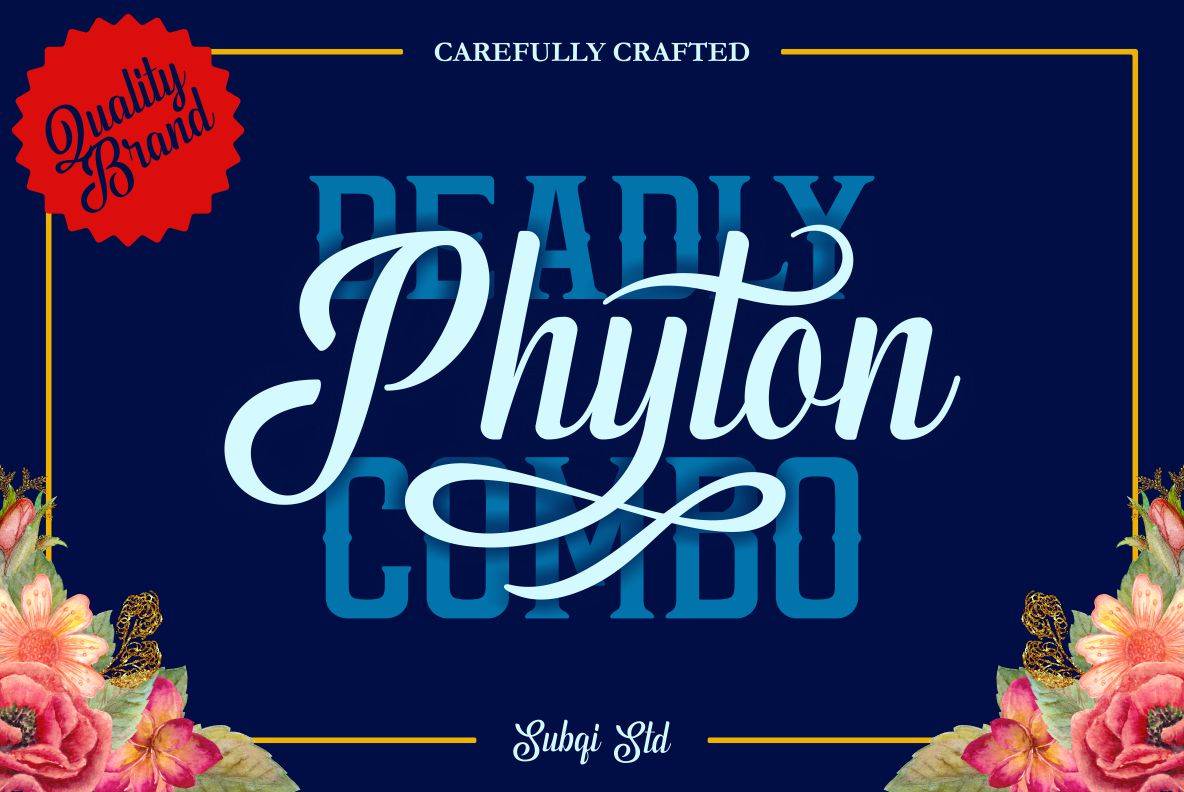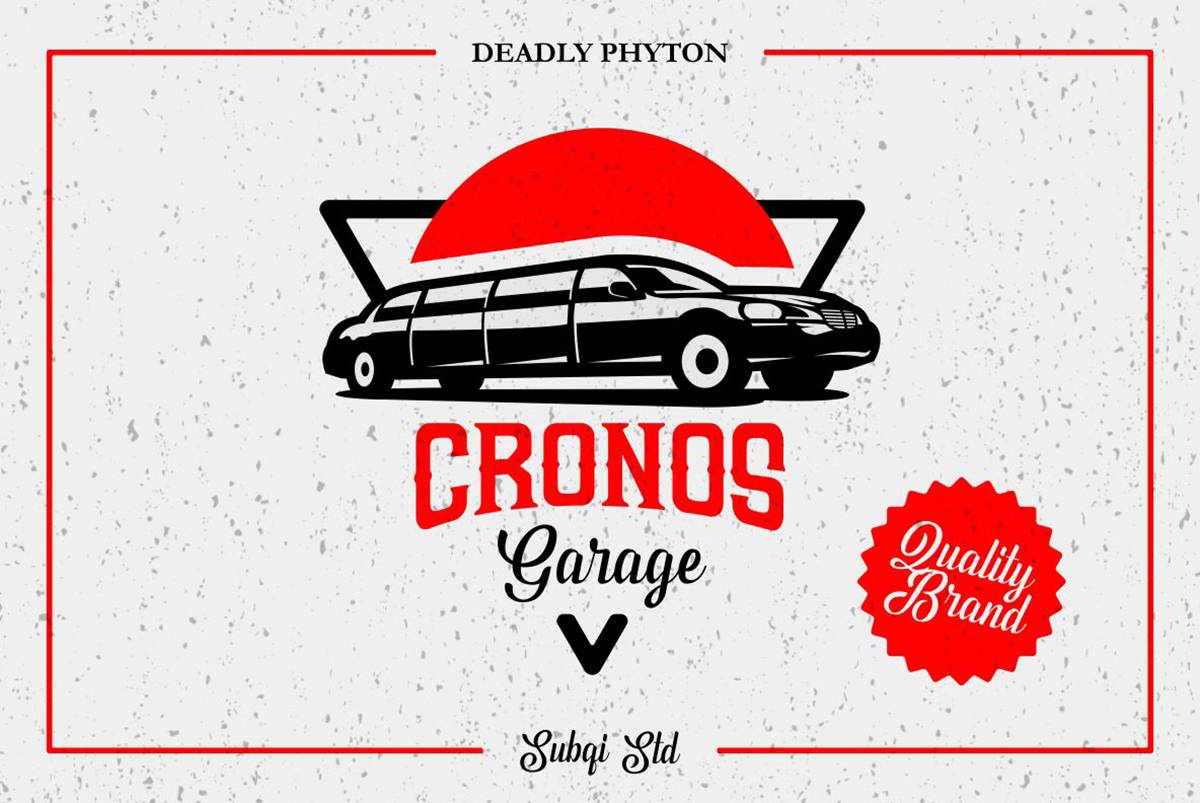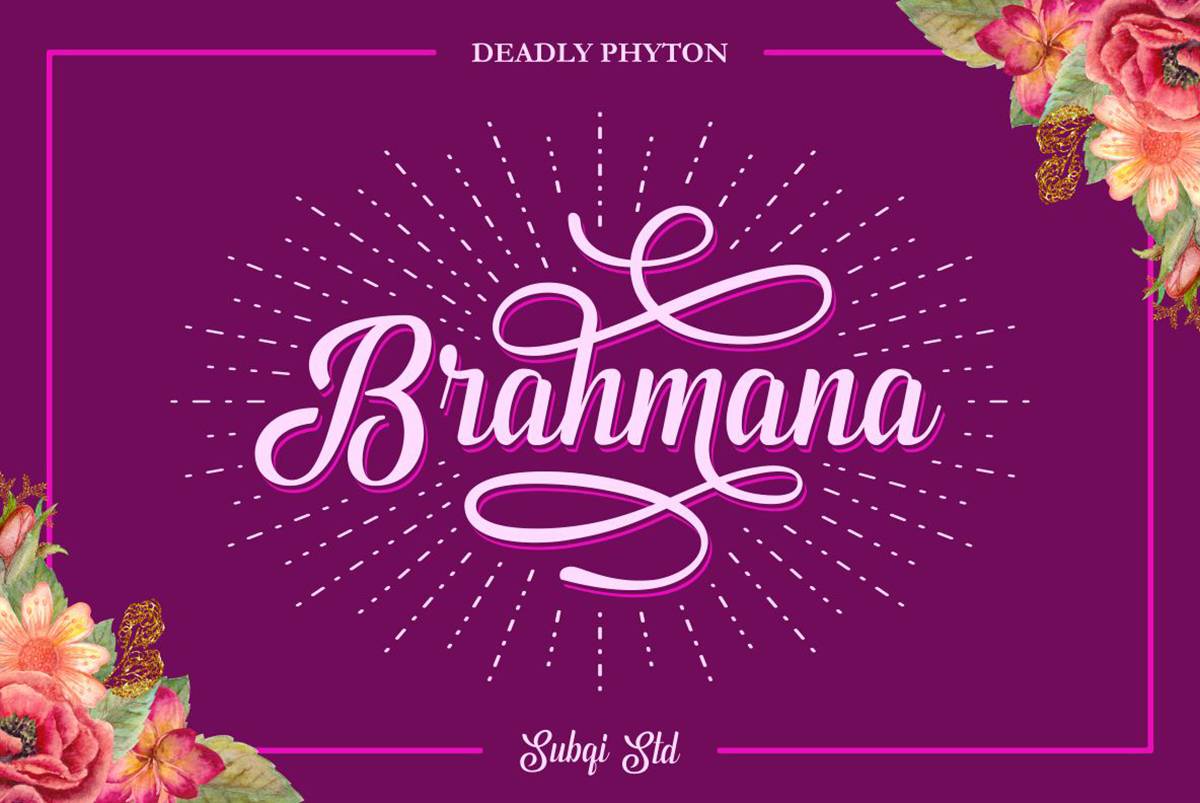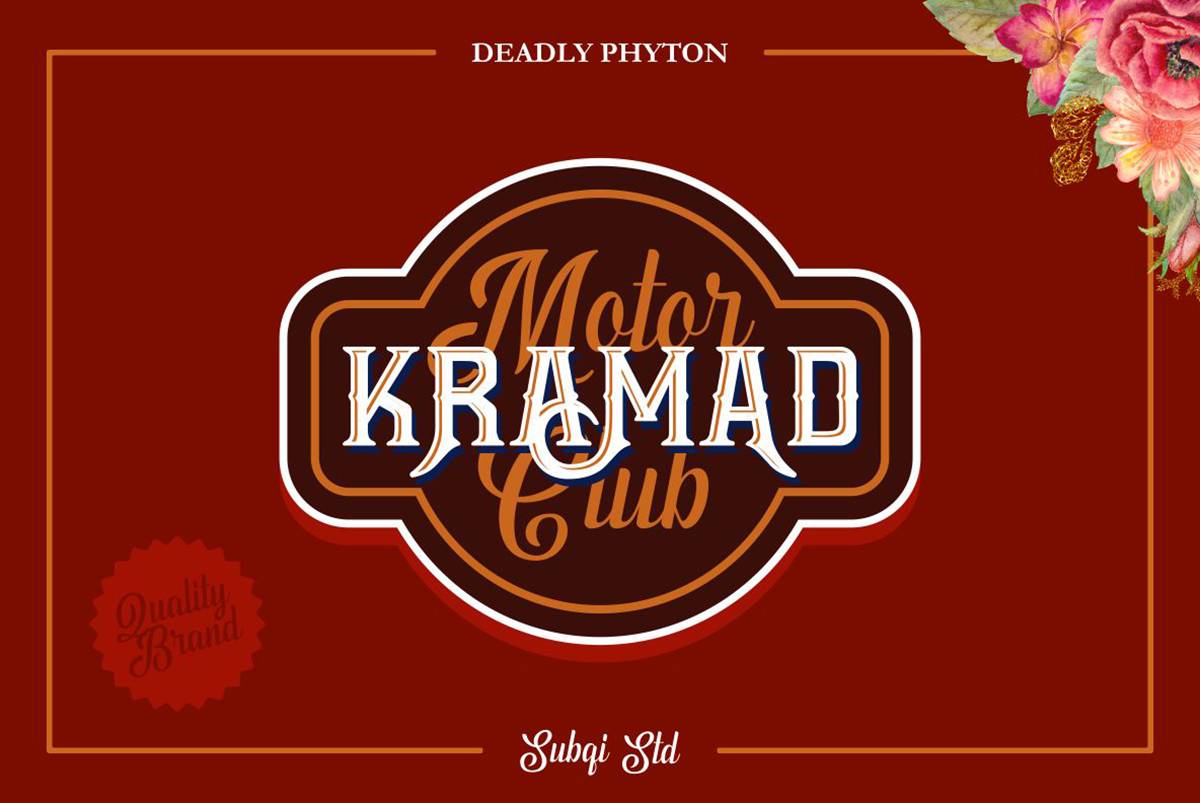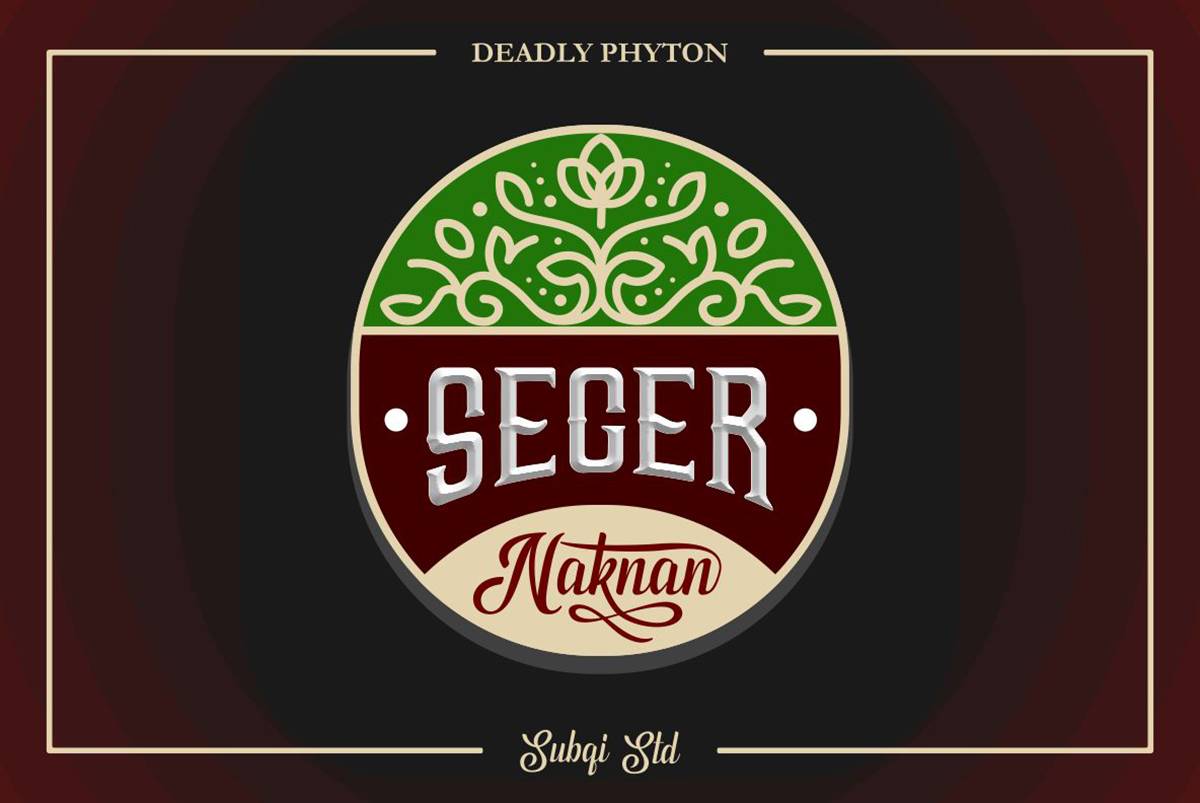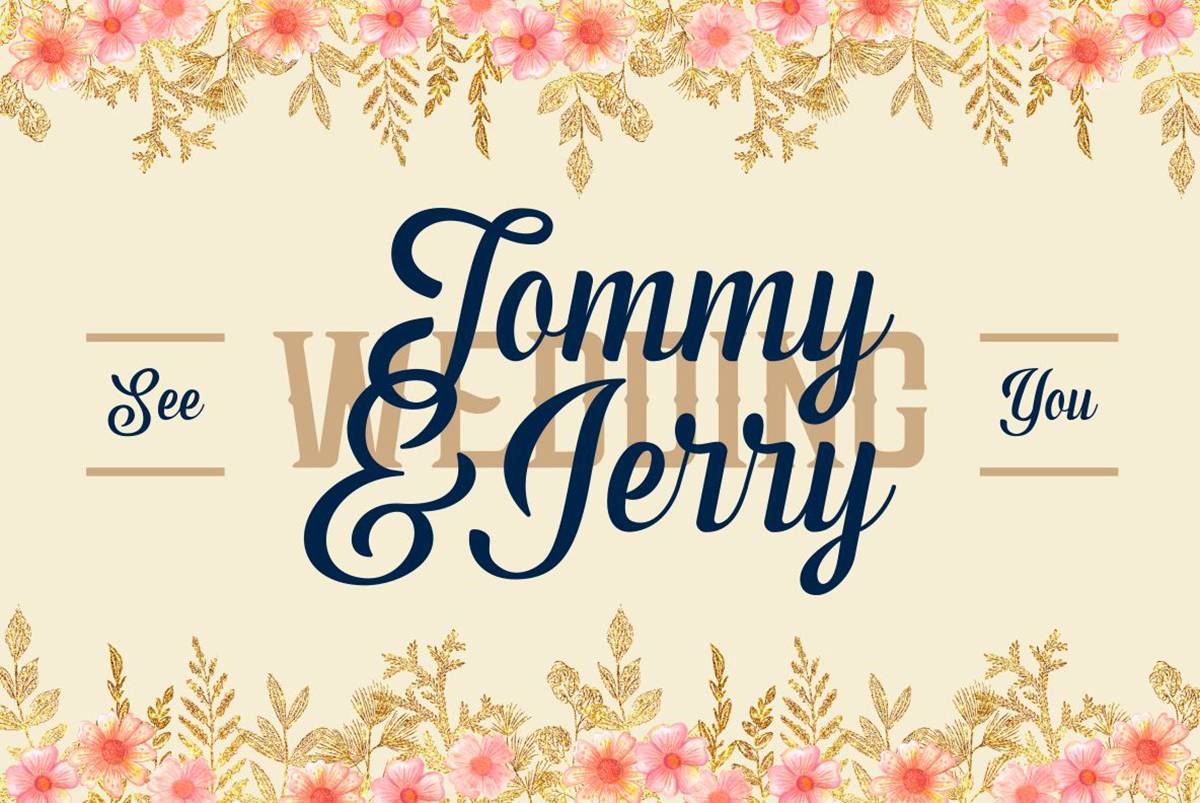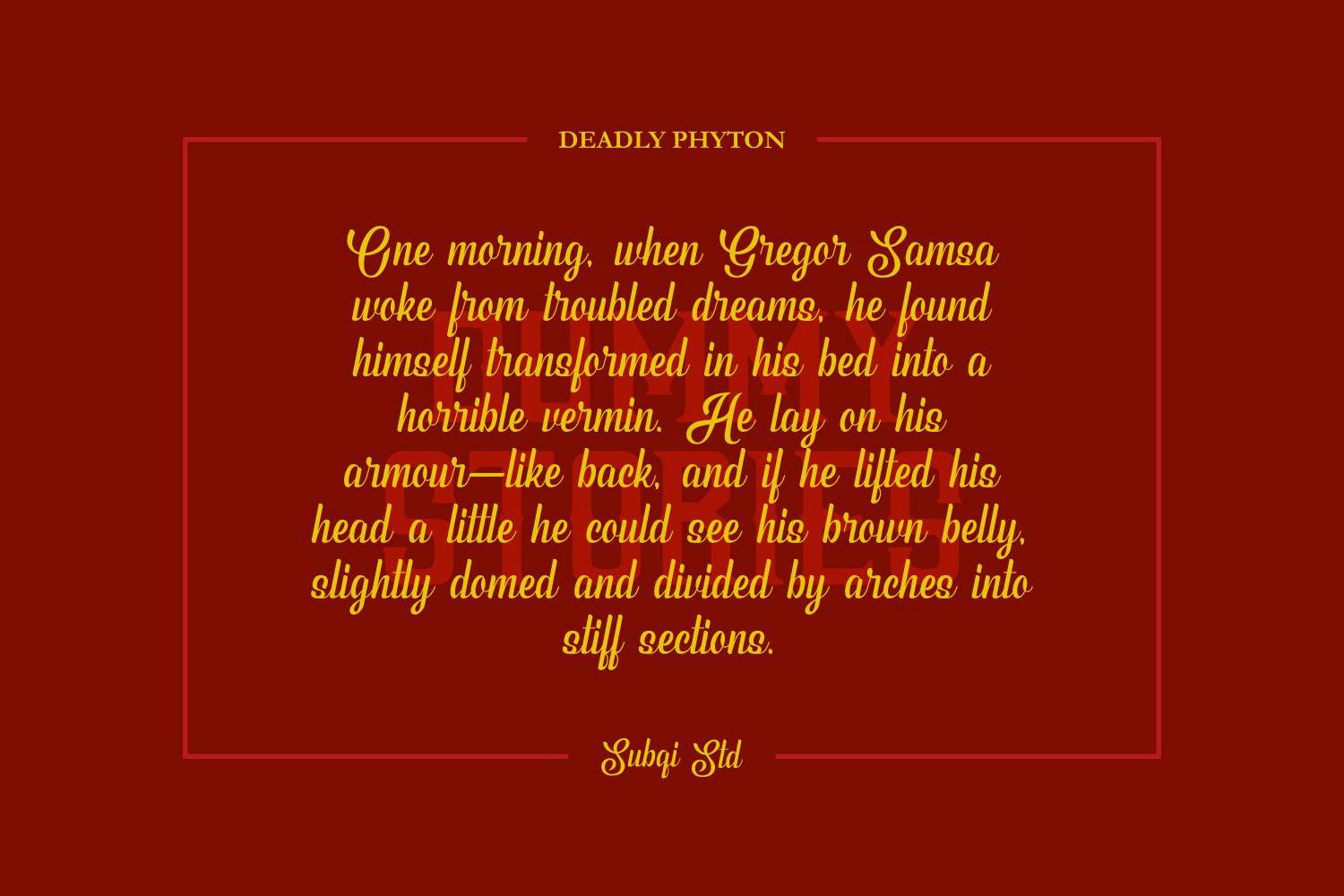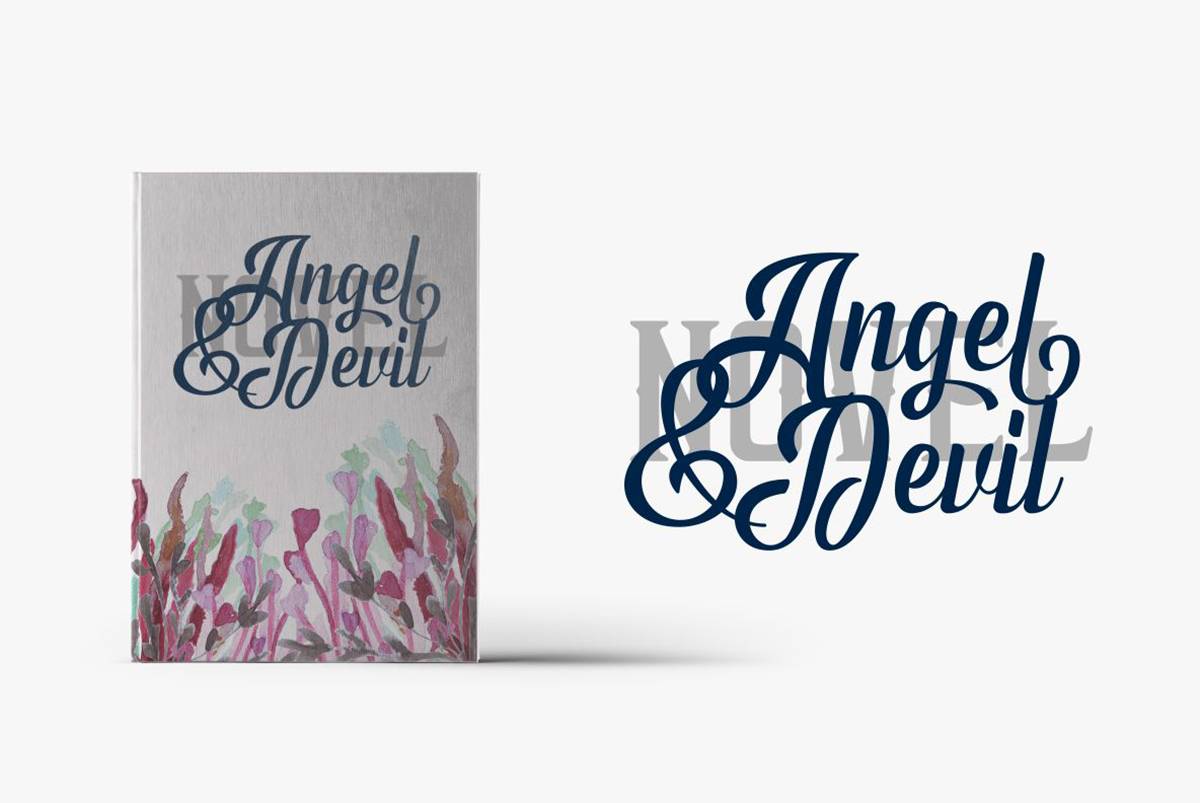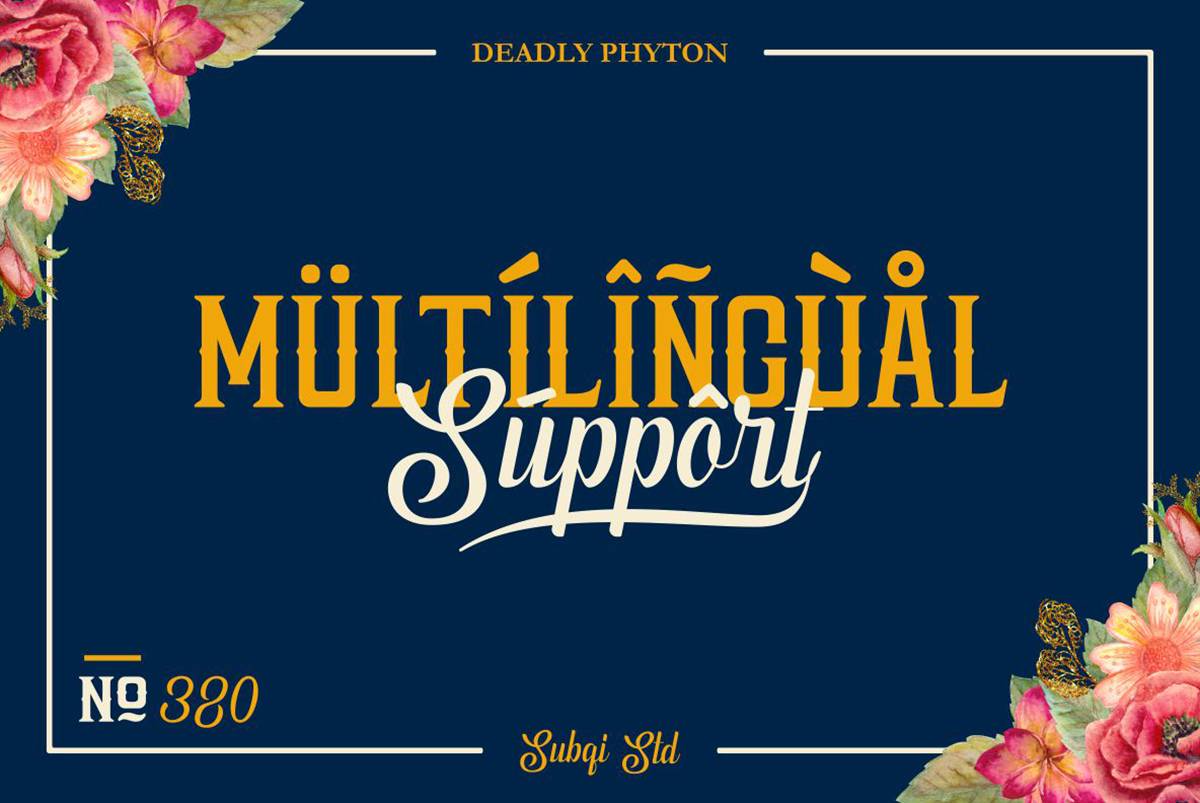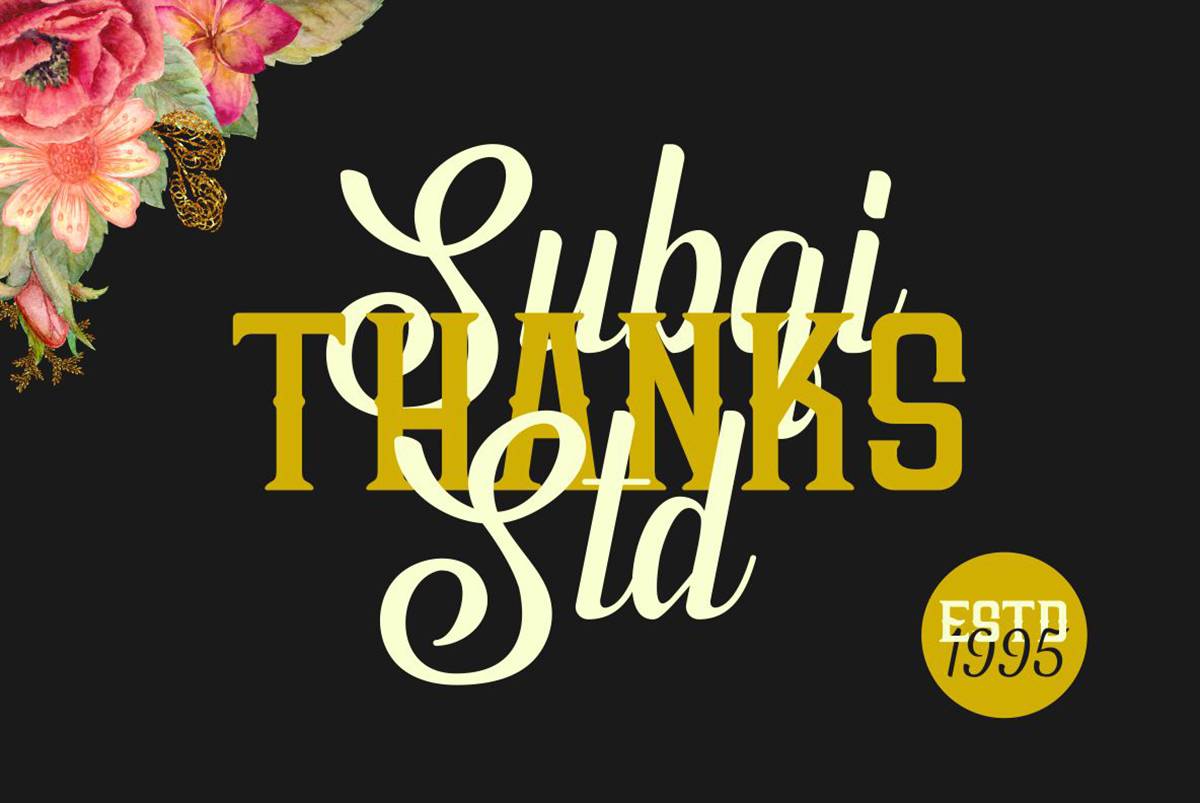
Phyton Combination Font is a graceful script typeface characterized by its elegant, flowing strokes and high contrast between thick and thin lines. It features classic cursive letterforms with smooth curves and distinctive swashes that convey a refined, sophisticated personality, making it ideal for invitations, luxury branding, and stylish editorial design. This font works best in headings or decorative contexts where its ornamental charm can stand out beautifully.
Phyton Combination Font
About Phyton Combination Font